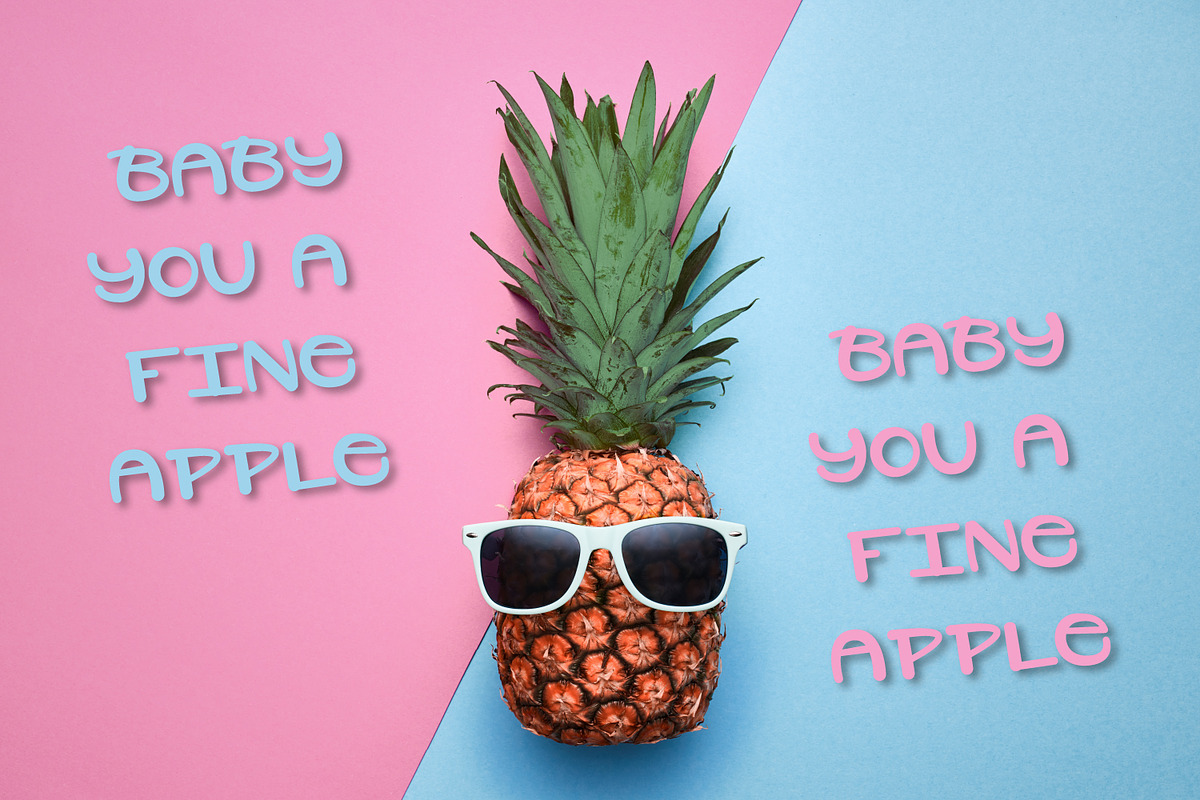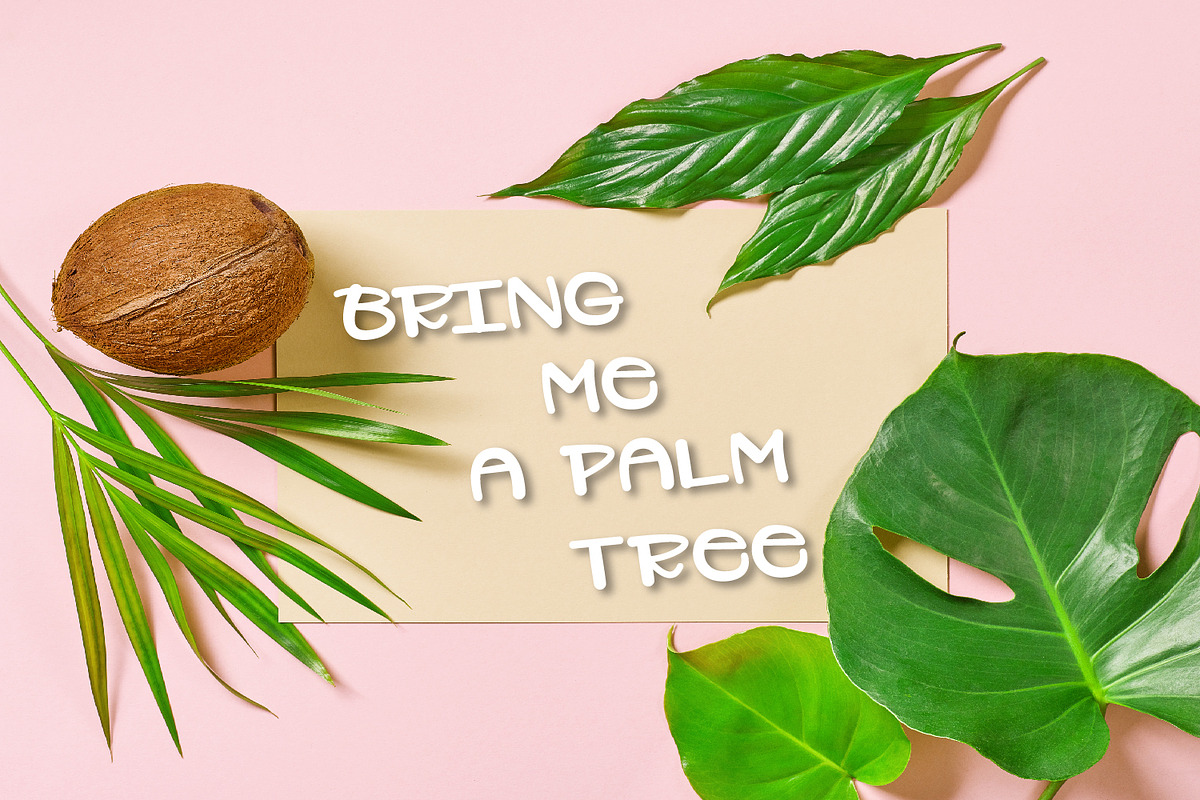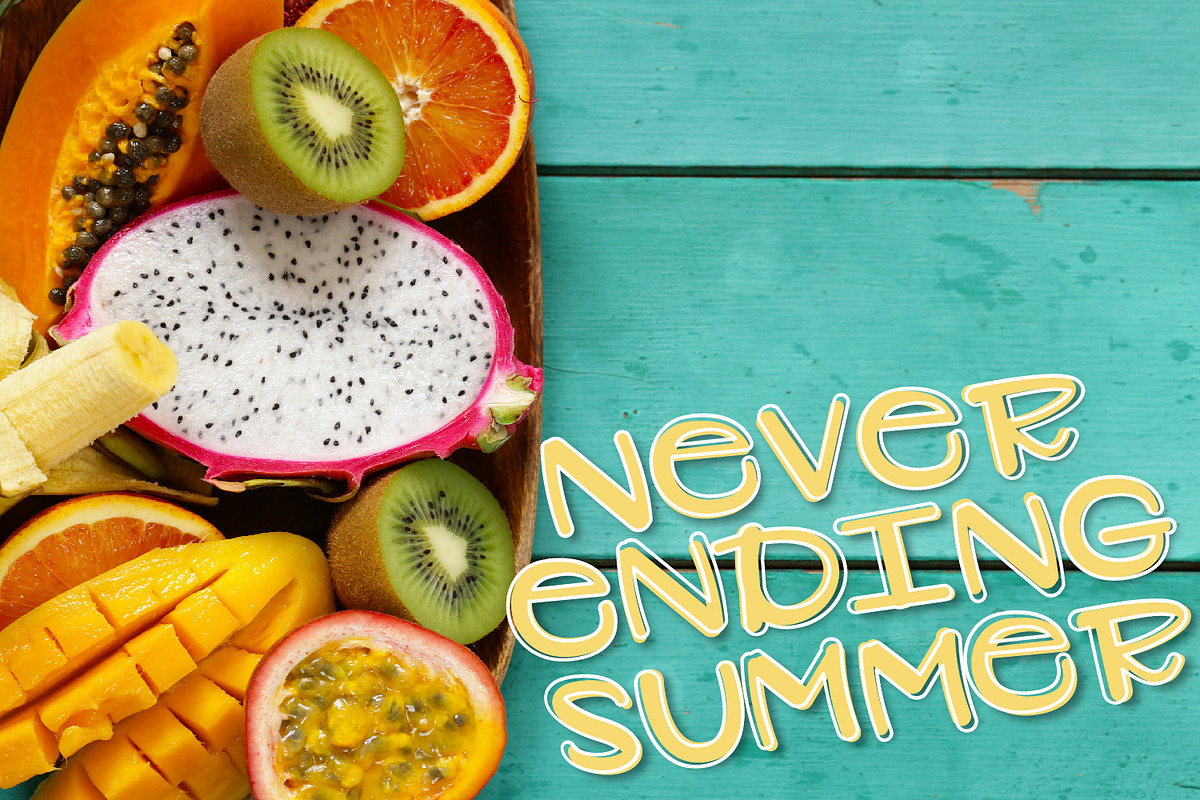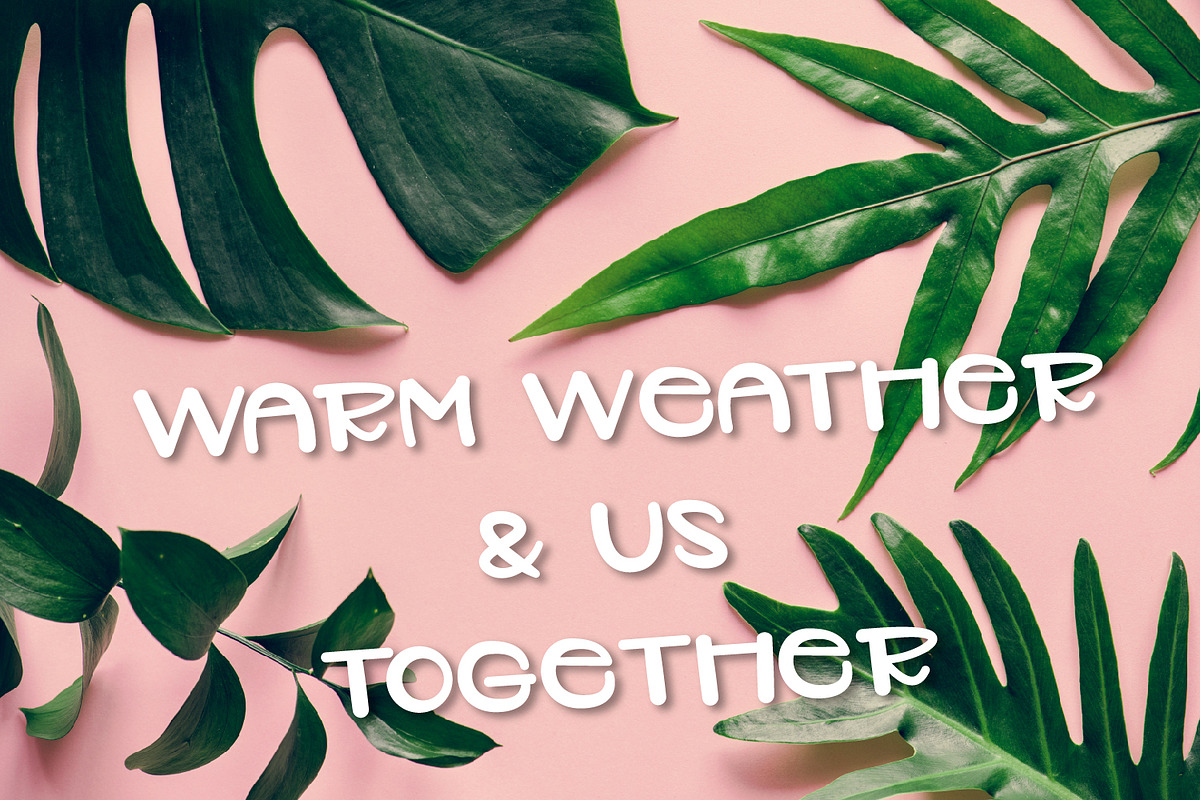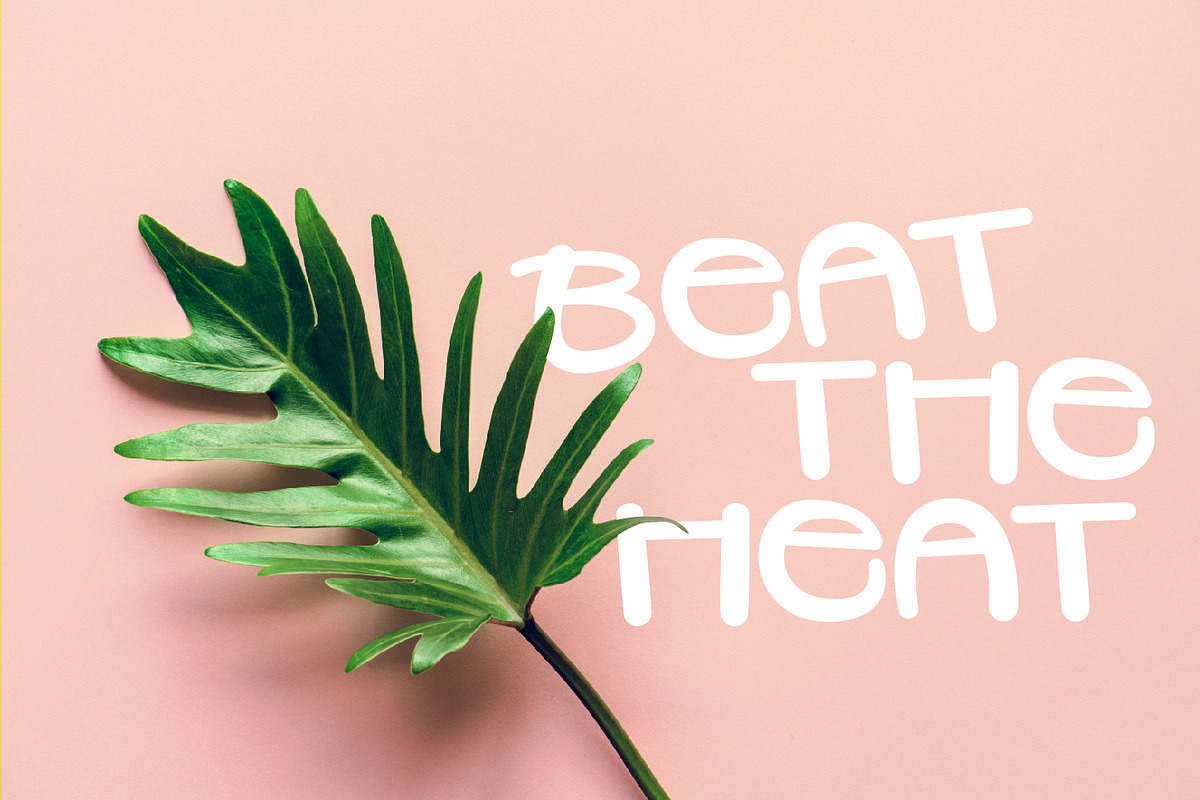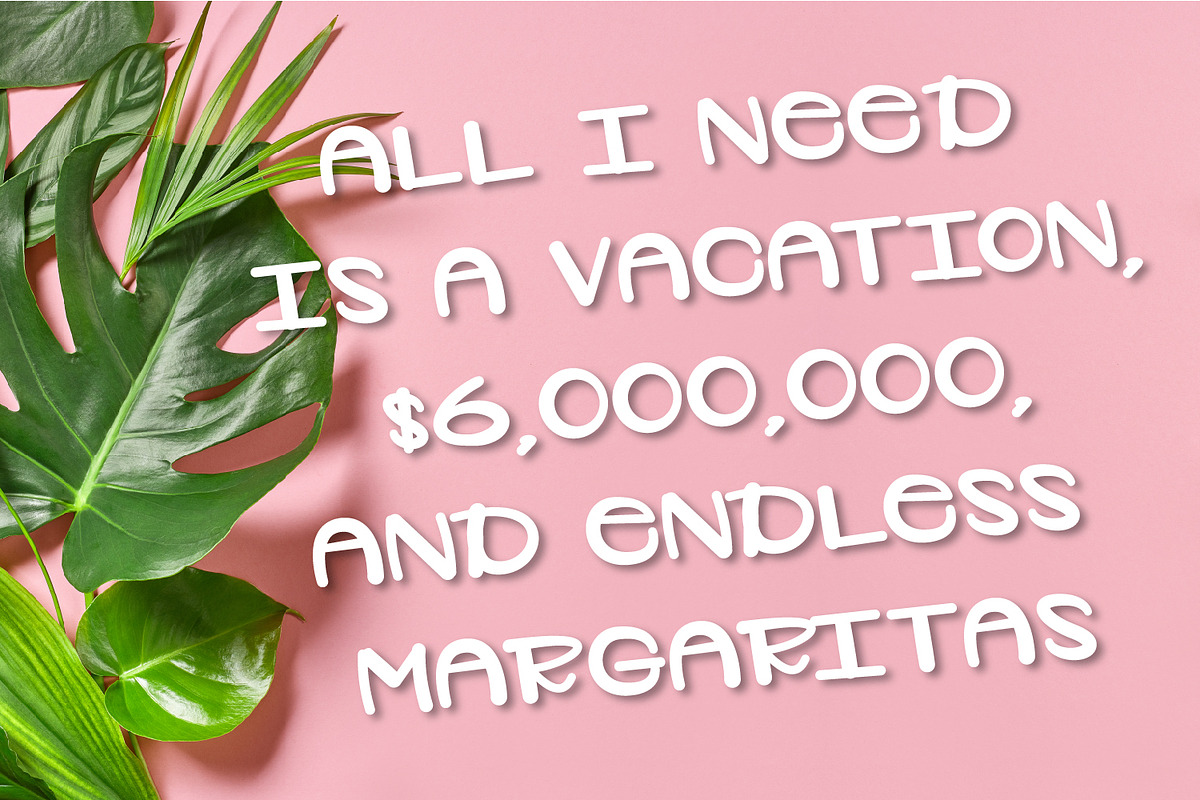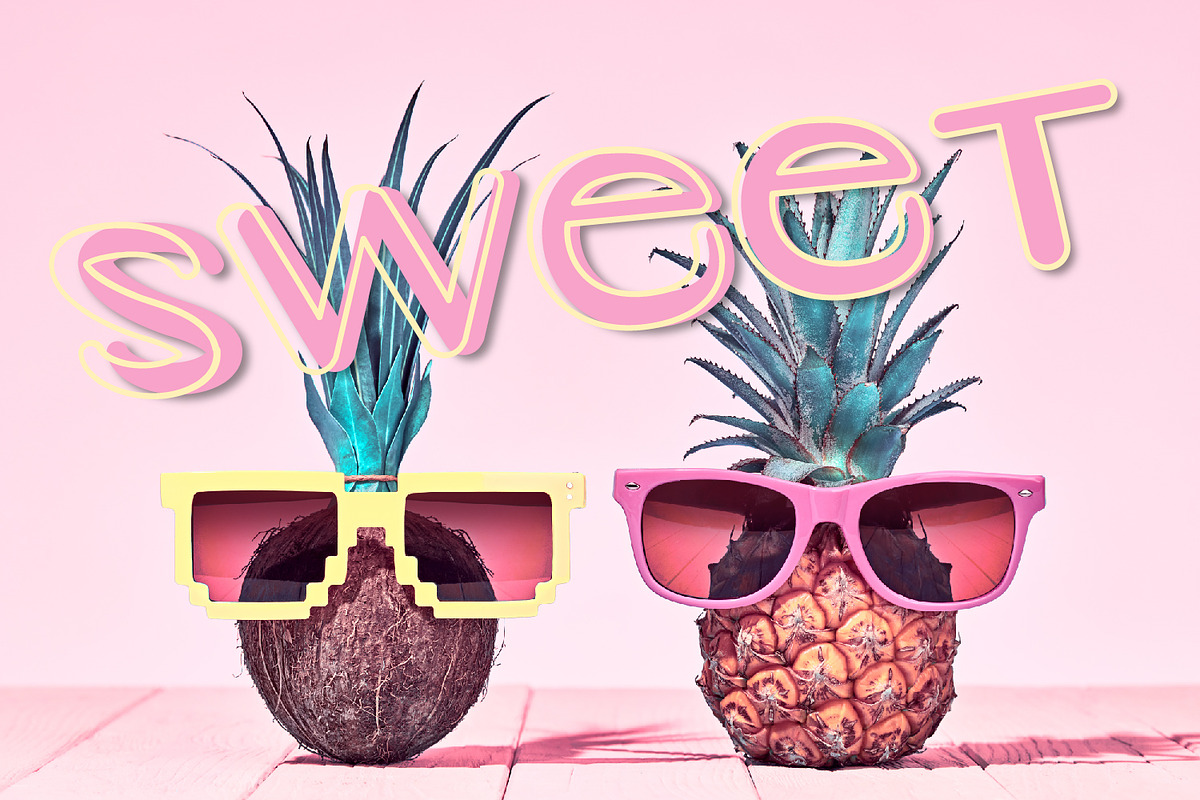
Plantelope - Outlined Font
Why Plantelope - Outlined Font is worth a look
Plantelope - Outlined Font by CraftyLittleNodes fits naturally into Branding, posters, packaging, typography.